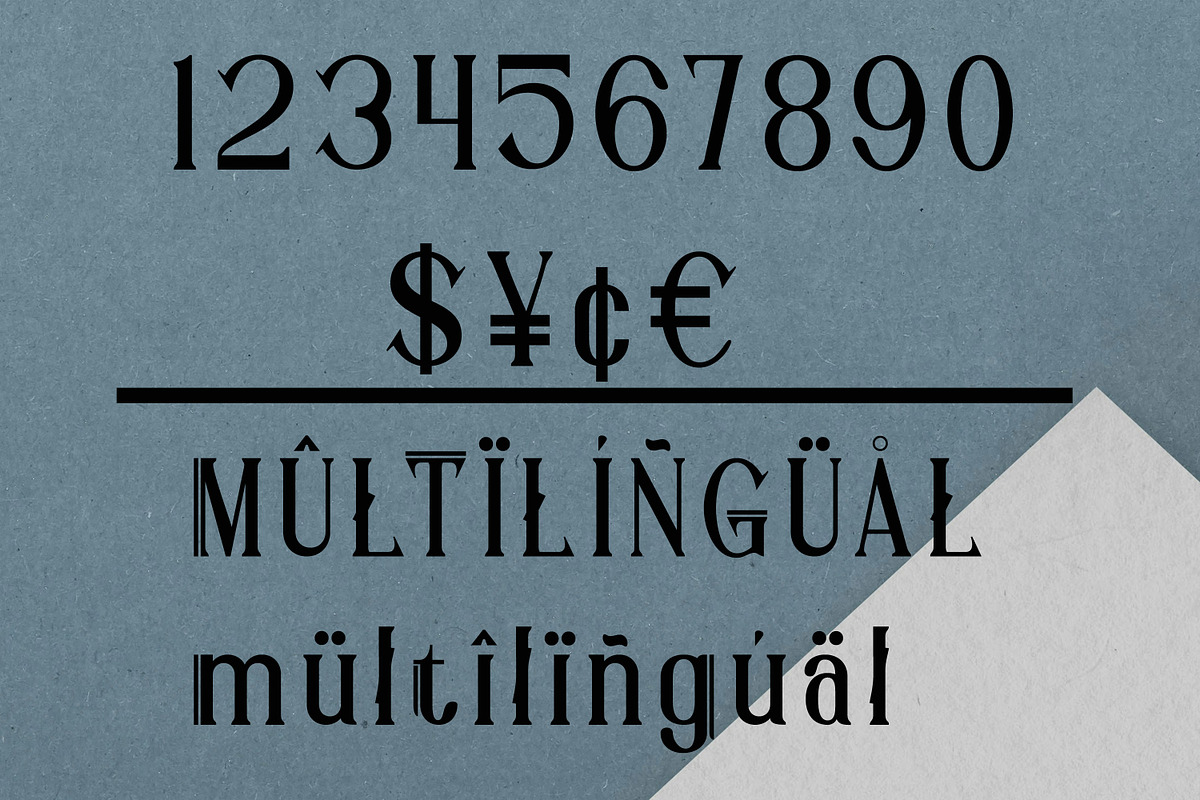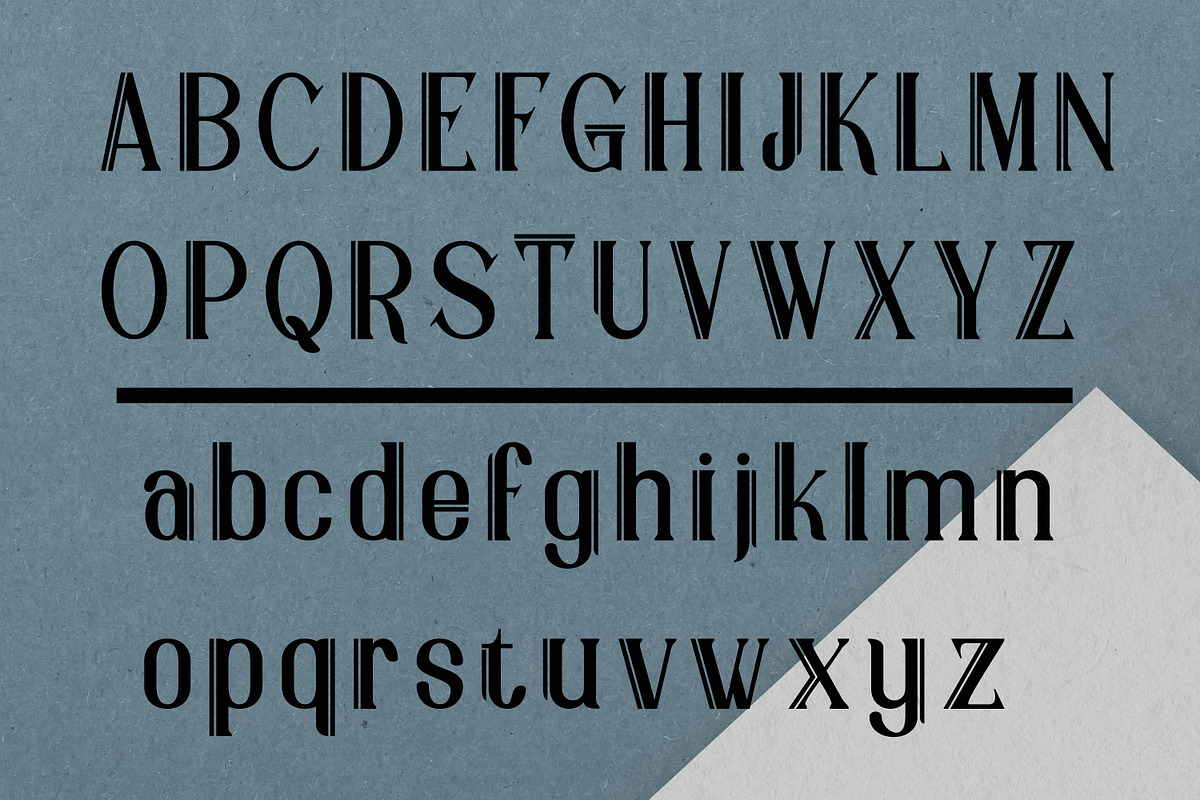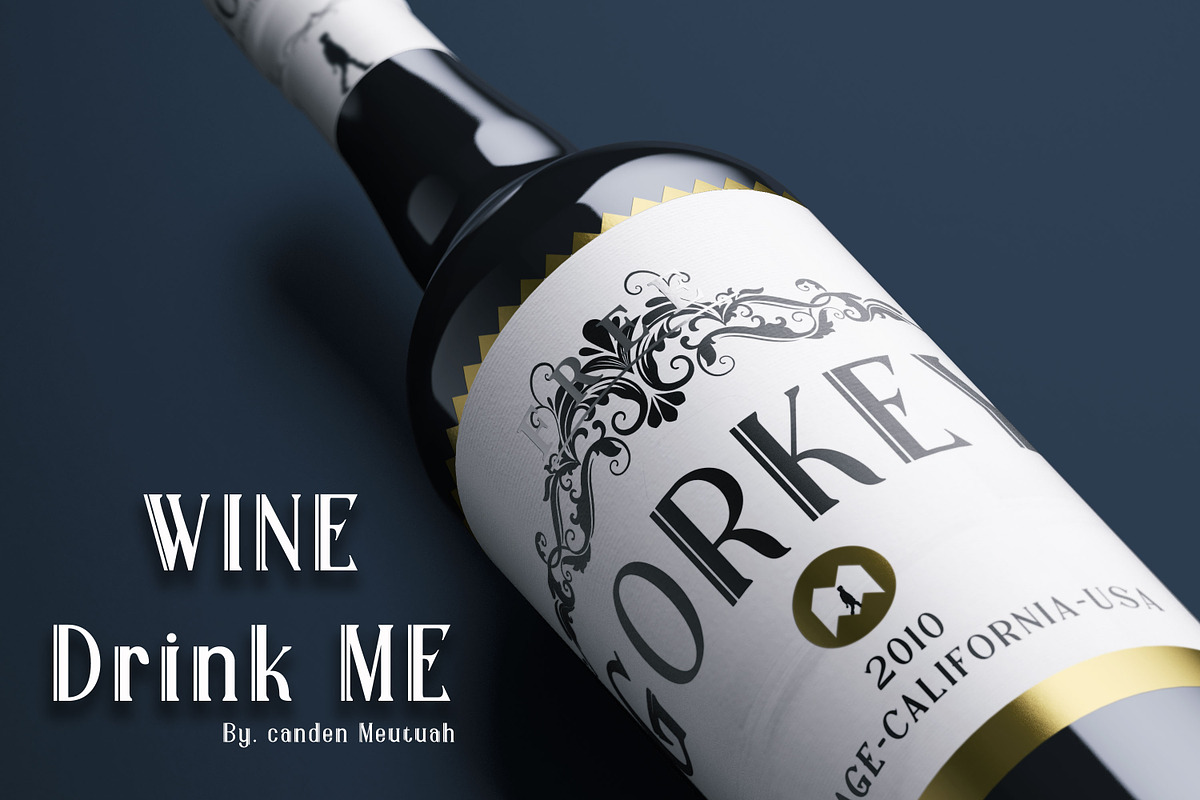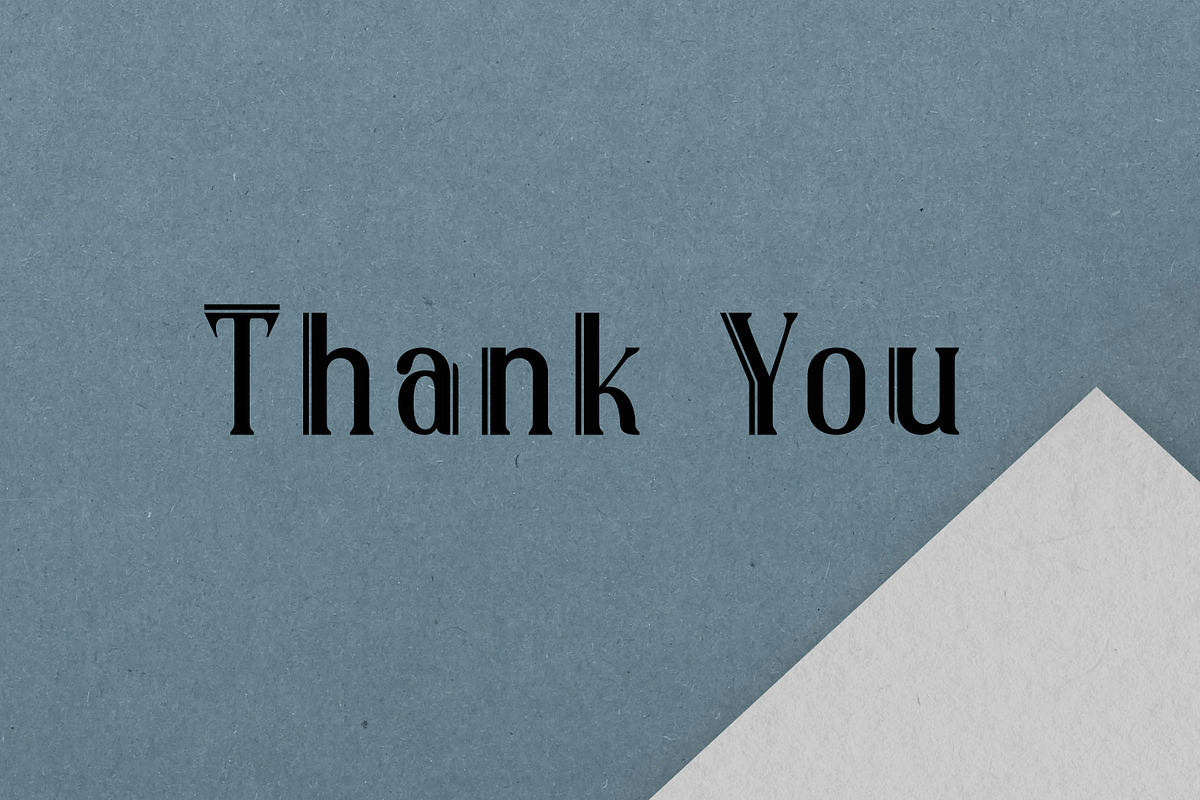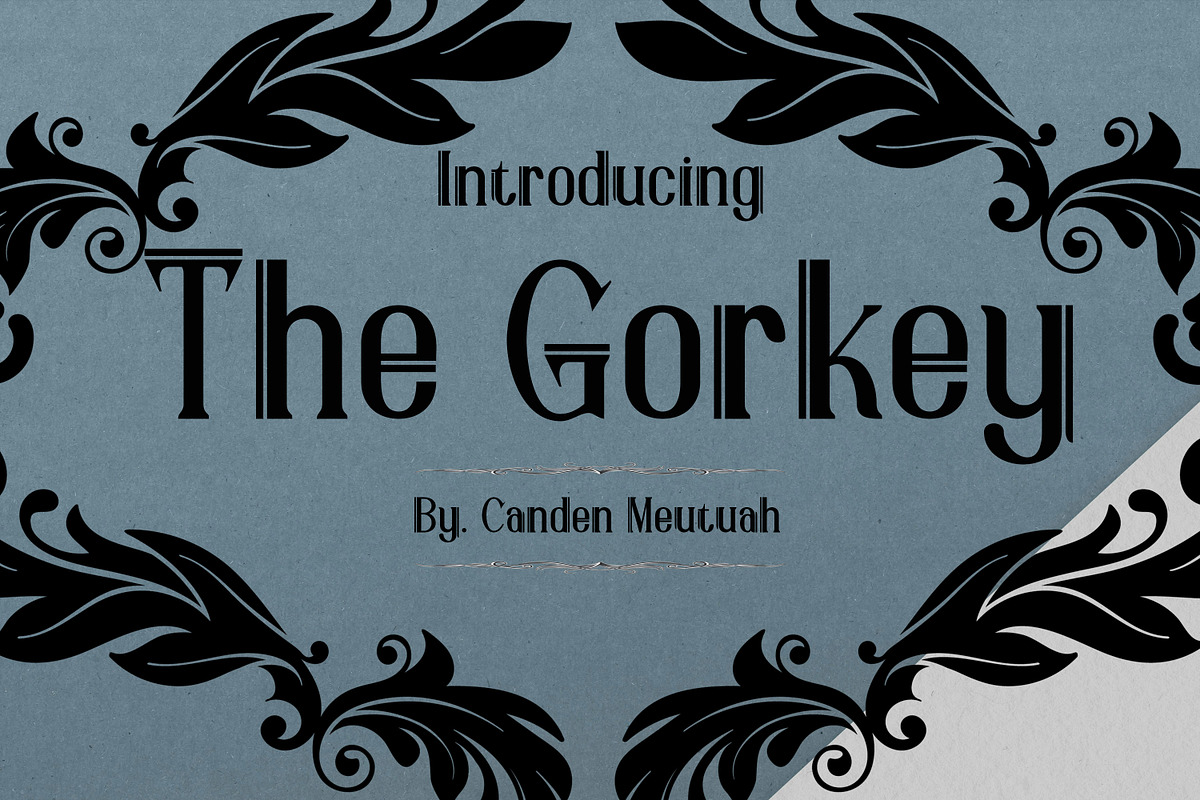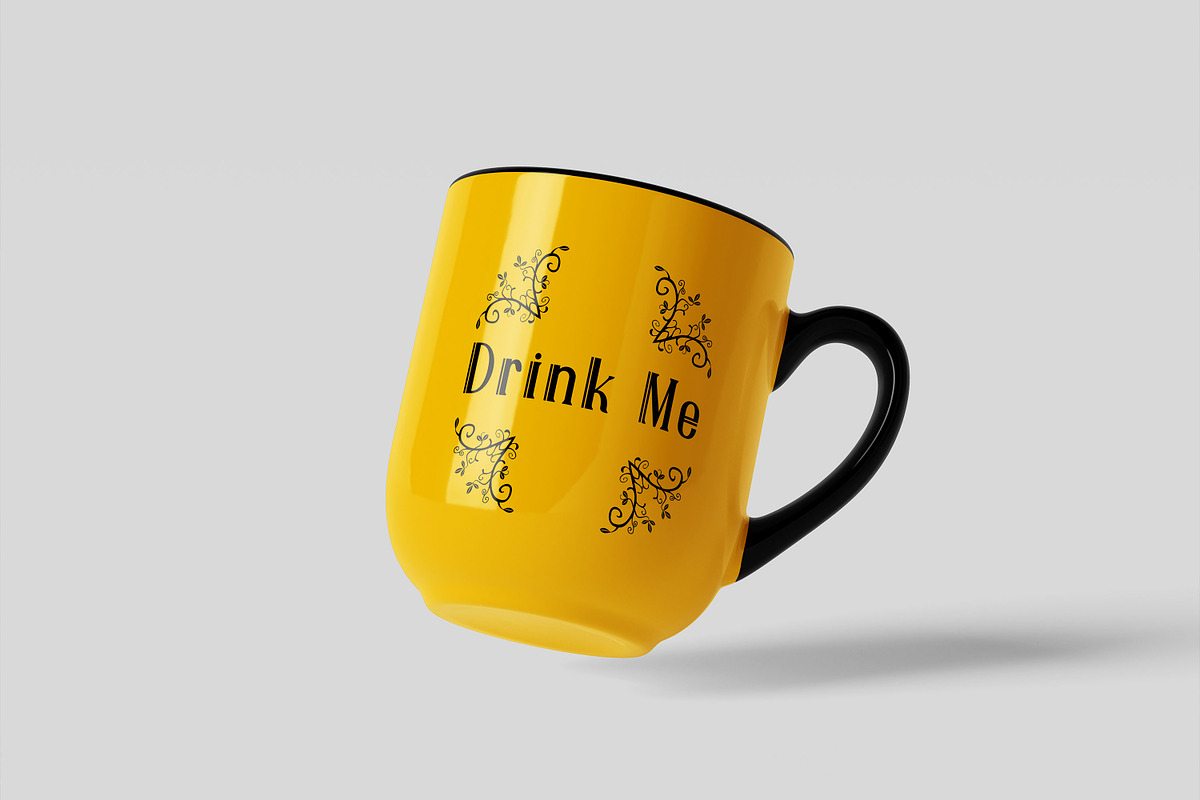
The Gorkey
The Gorkey is a bold and stylish condensed sans serif font, blending retro aesthetics with modern minimalism. Designed with uppercase and lowercase characters, The Gorkey features strict proportions, clean lines, and striking curves, giving your designs a bold personality.
This font is perfect for posters, logo designs, editorial titles, album covers, fashion branding, and display titles, attracting attention with a distinctive touch.